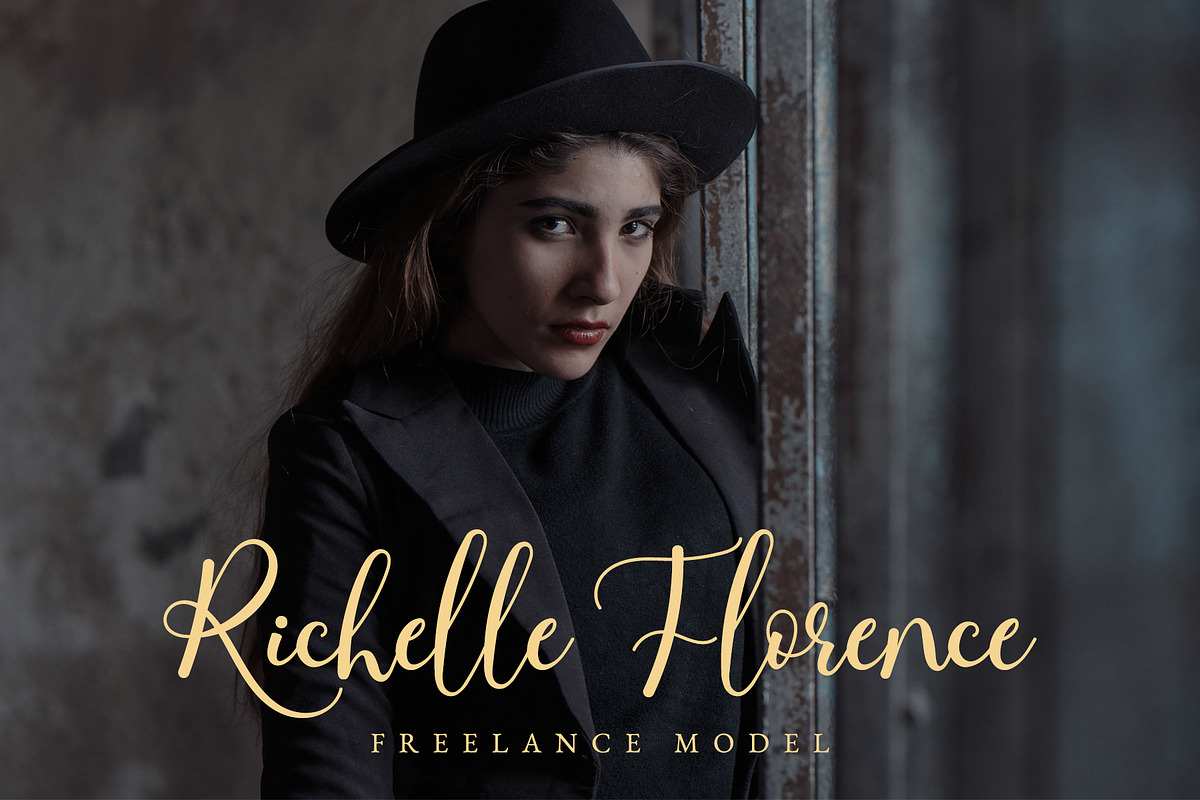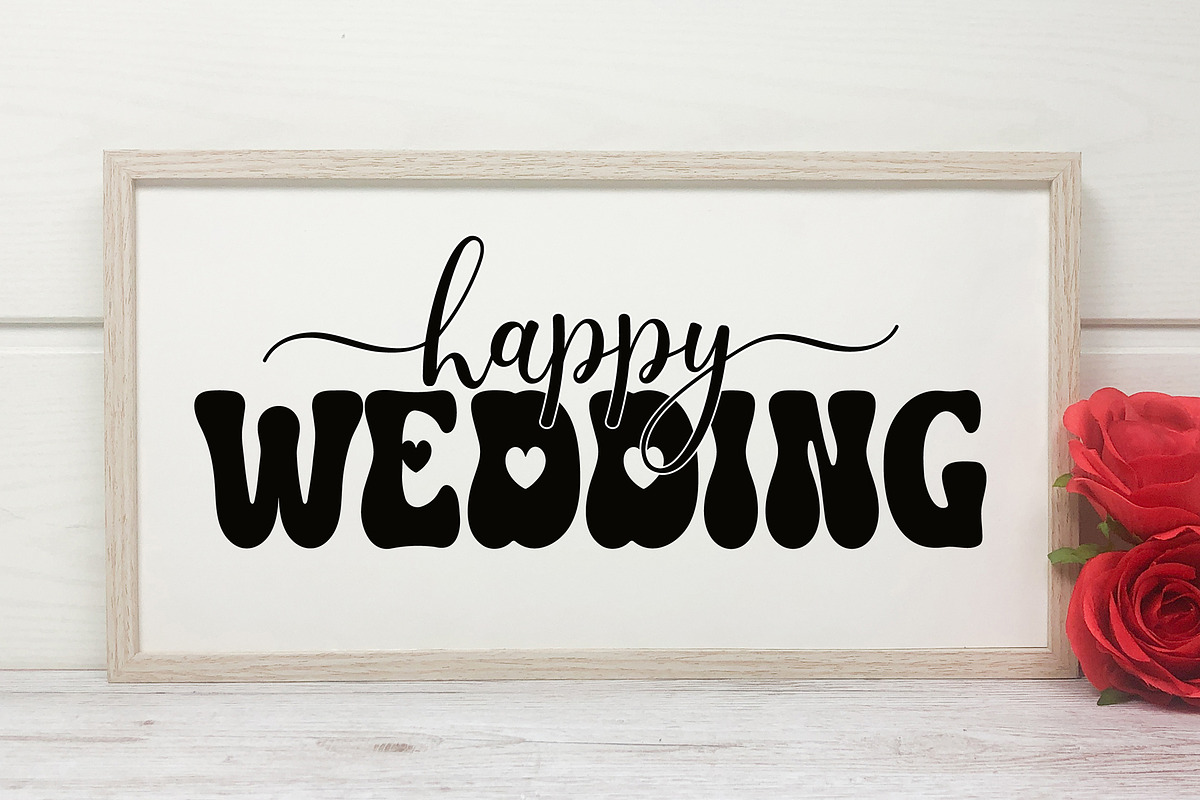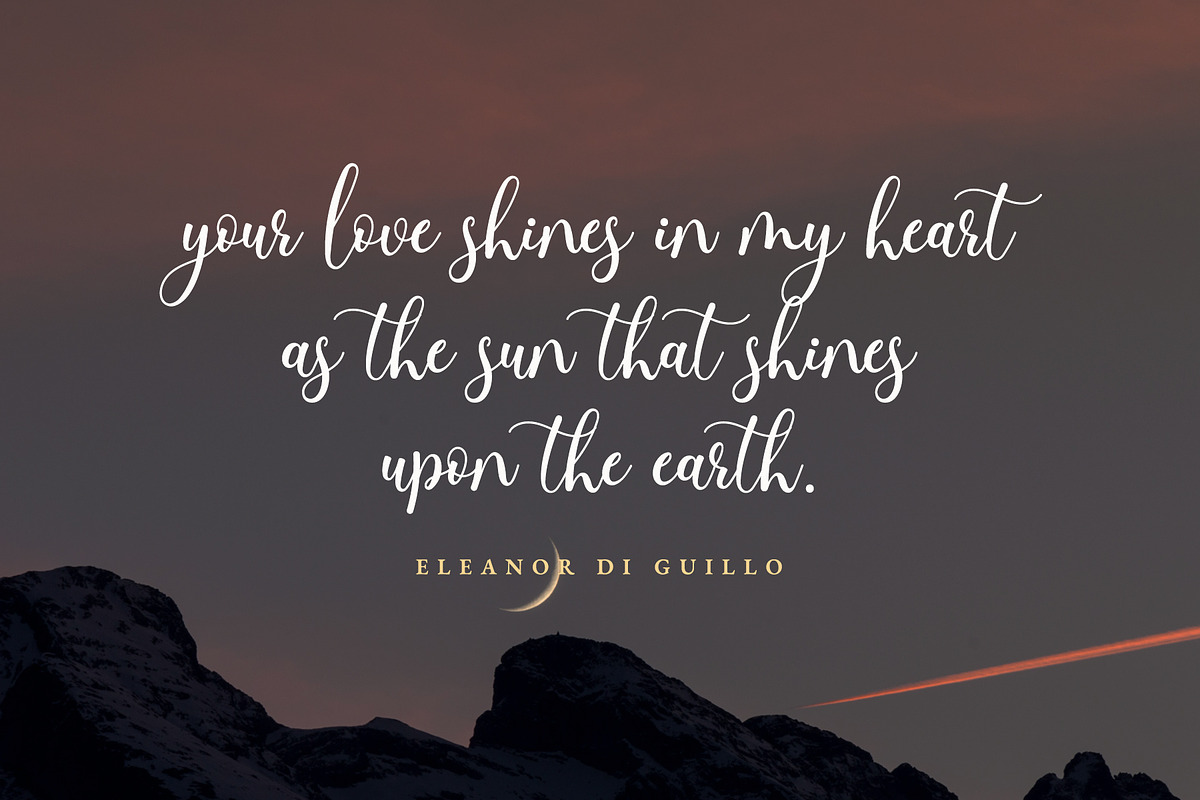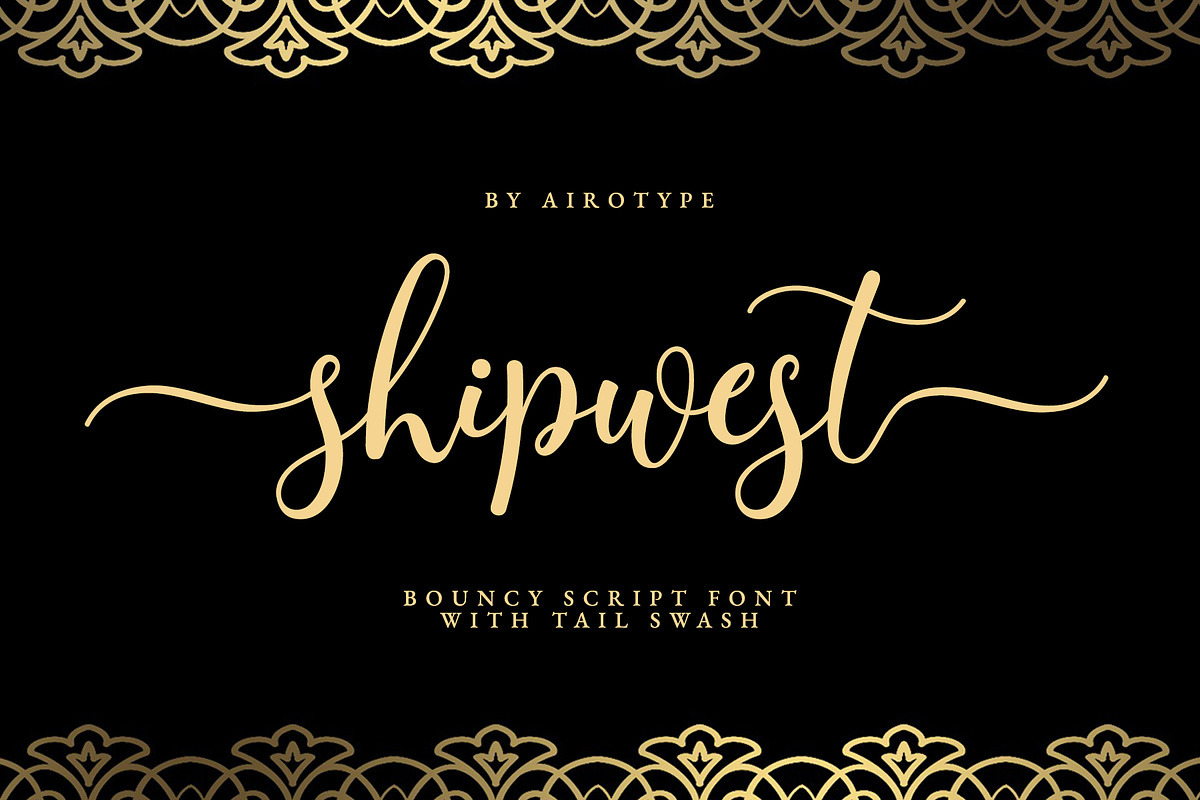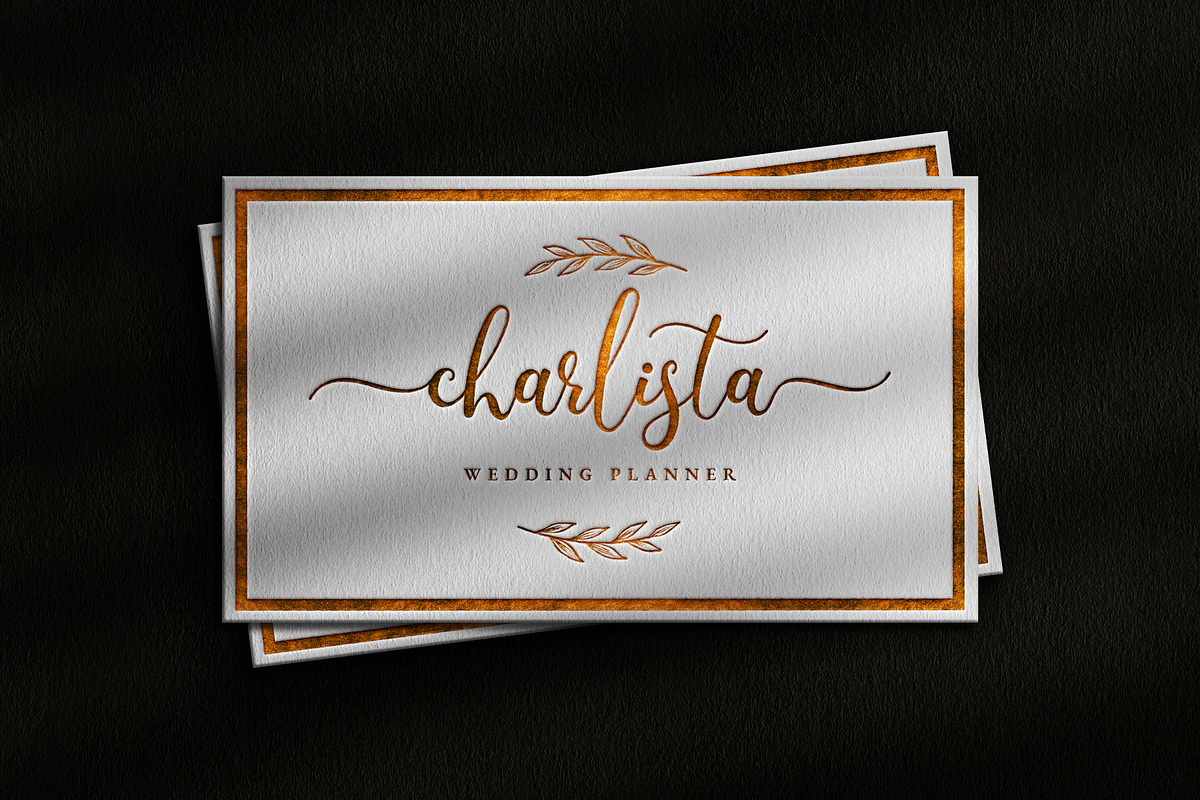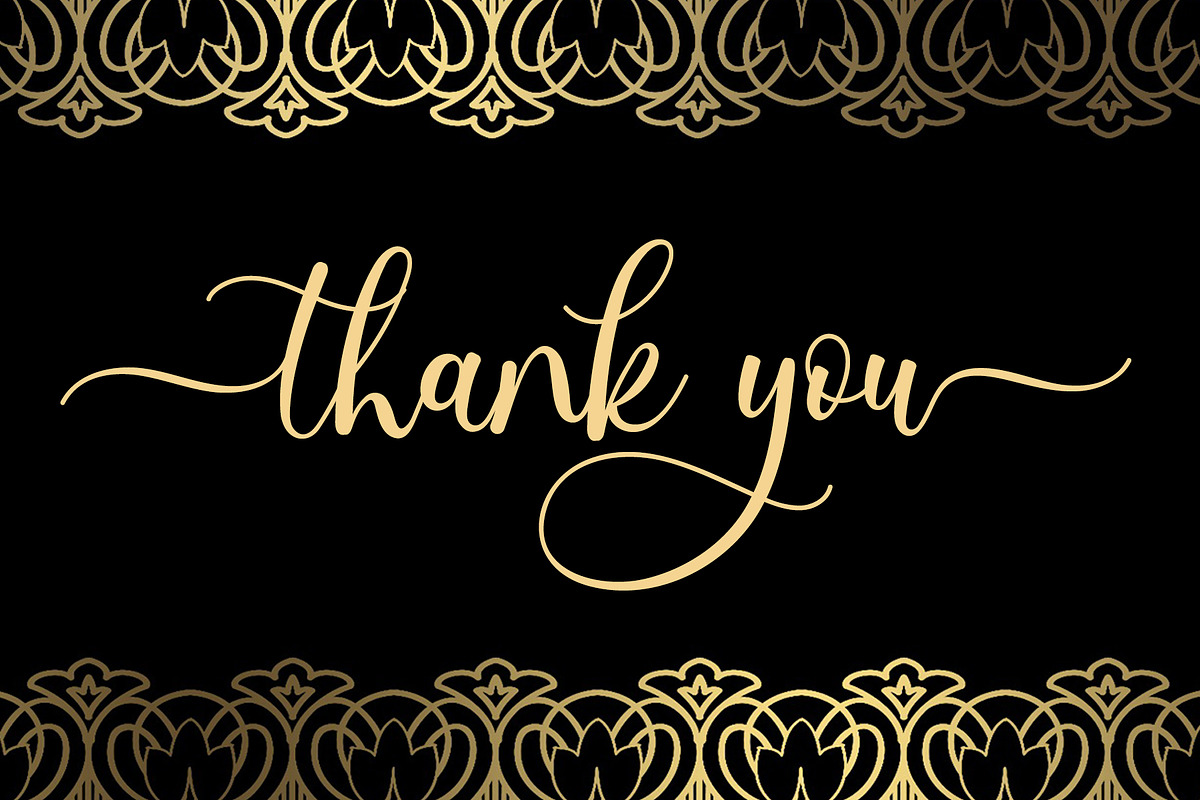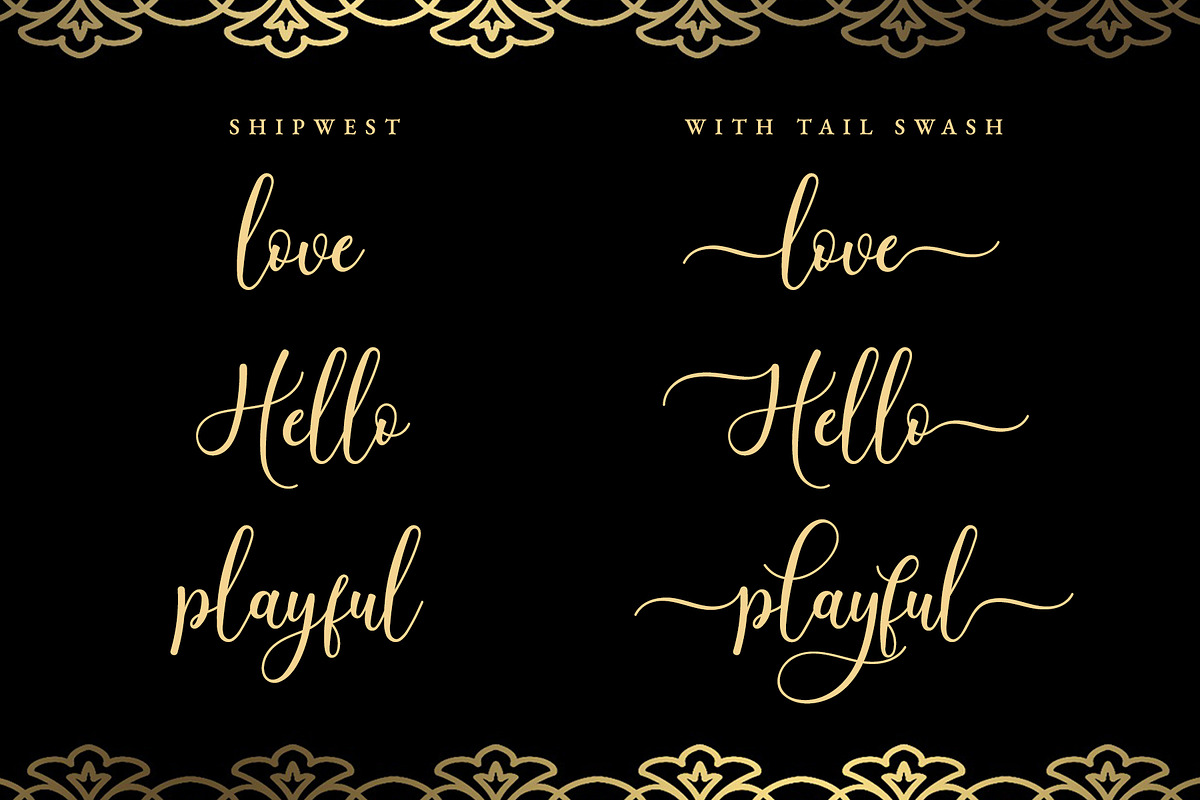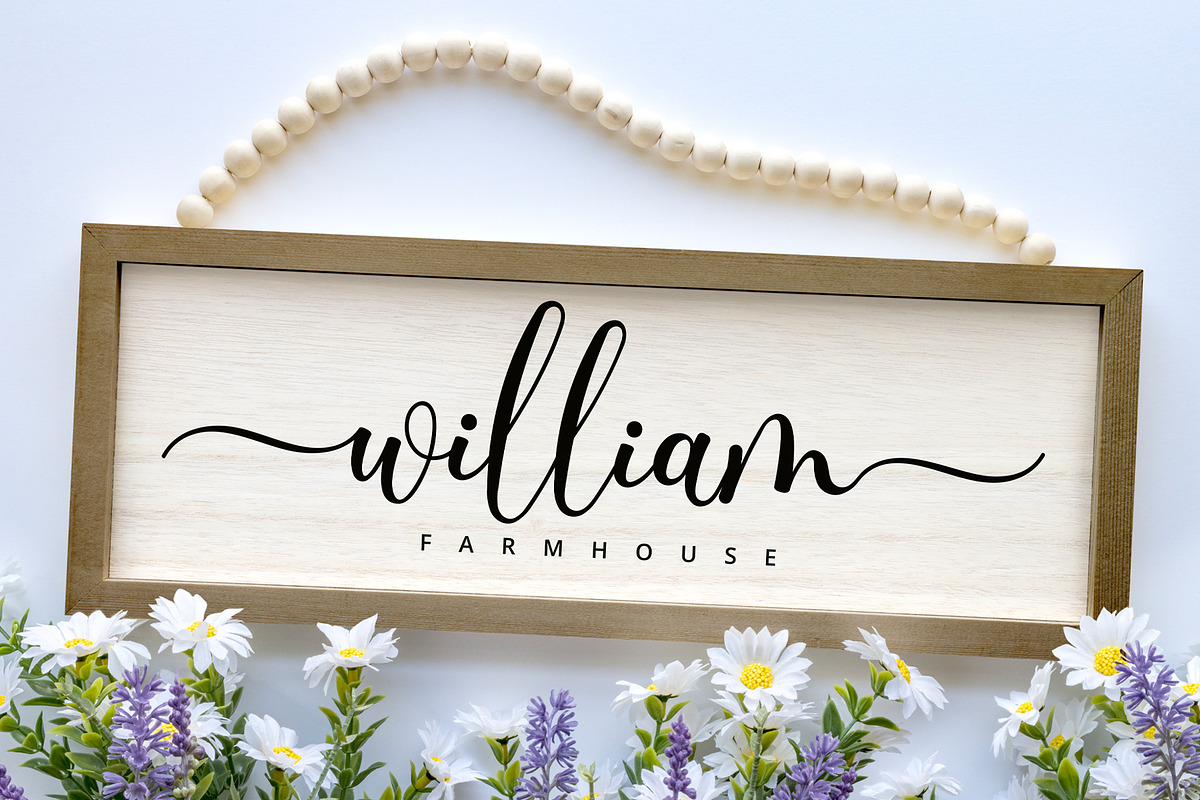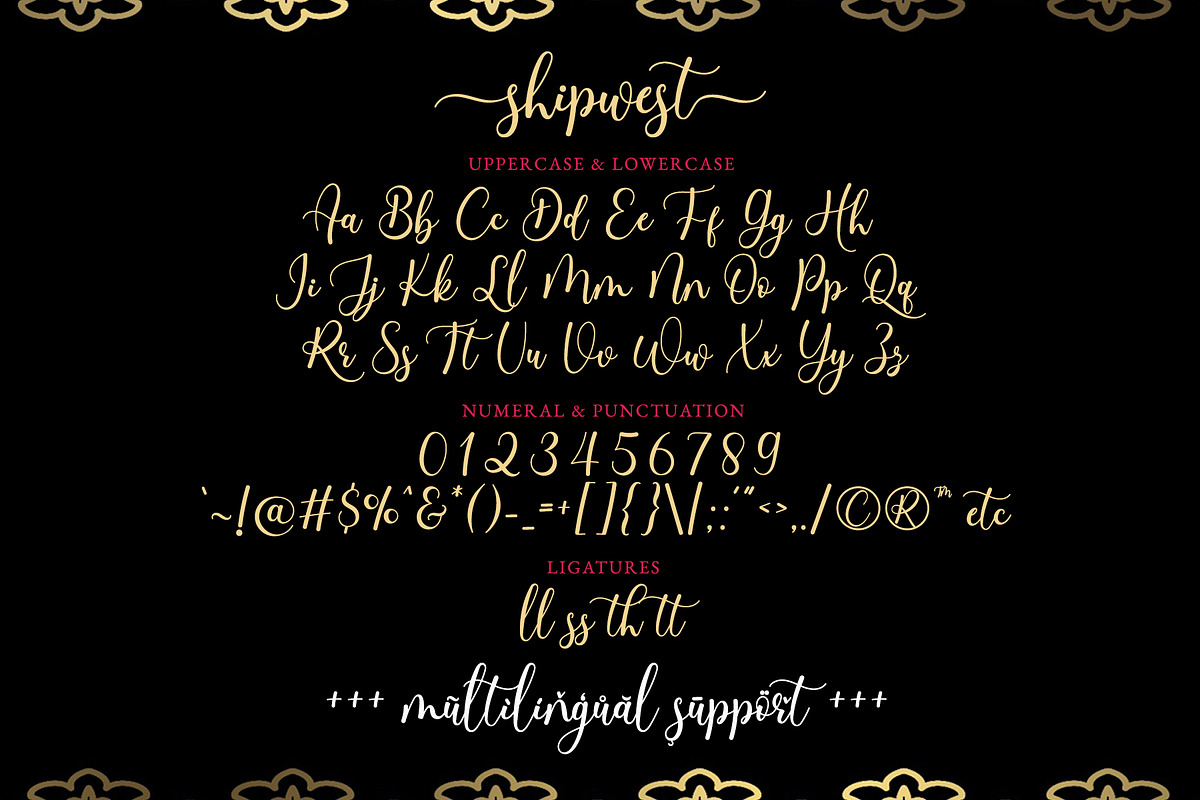
Shipwest - Tail Swash Script Font
Shipwest is bouncy handwritten script font. It is casual, elegant, and stylish. It has has tail swash for its front and back.
Shipwest is gorgeous font for design with elegant and lovely vibes, such as wedding, invitation, stickers, sublimation, cards, birthday, t-shirt design, farmhouse design, and others.
- Uppercase and Lowercase (includes swash)
- Most Multilingual Accent